When it comes to using Canva for Cricut, having the perfect font can take your creations to the next level. In this article, we will explore 15 of the best Canva fonts that are ideal for Cricut projects. These fonts are not only visually appealing but also practical for cutting with precision on your Cricut machine. Whether you’re creating personalized gifts, home decor, or custom apparel, having the right font can truly elevate your designs and make them stand out.
1. Anton
Why it’s best for Cricut: Anton is a robust, sans-serif font known for its boldness and clarity. Its impactful appearance makes it excellent for projects that require attention-grabbing headers. The thick, uniform strokes ensure clean cuts, making it ideal for vinyl and paper projects where clarity is key.
2. Athens
Why it’s best for Cricut: Athens is a clean, serif font that brings a touch of sophistication to any project. Its well-proportioned letters offer a balance of classic and modern style. The crisp, distinct serifs and balanced spacing ensure that each letter cuts clearly, perfect for elegant and readable designs.
3. Balgin Condensed
Why it’s best for Cricut: Balgin Condensed is a modern, sans-serif font that’s perfect for fitting more text into limited spaces without losing legibility. Its narrow, uniform lines cut cleanly and efficiently, making it suitable for labels, tags, and other compact designs.
4. Blogger
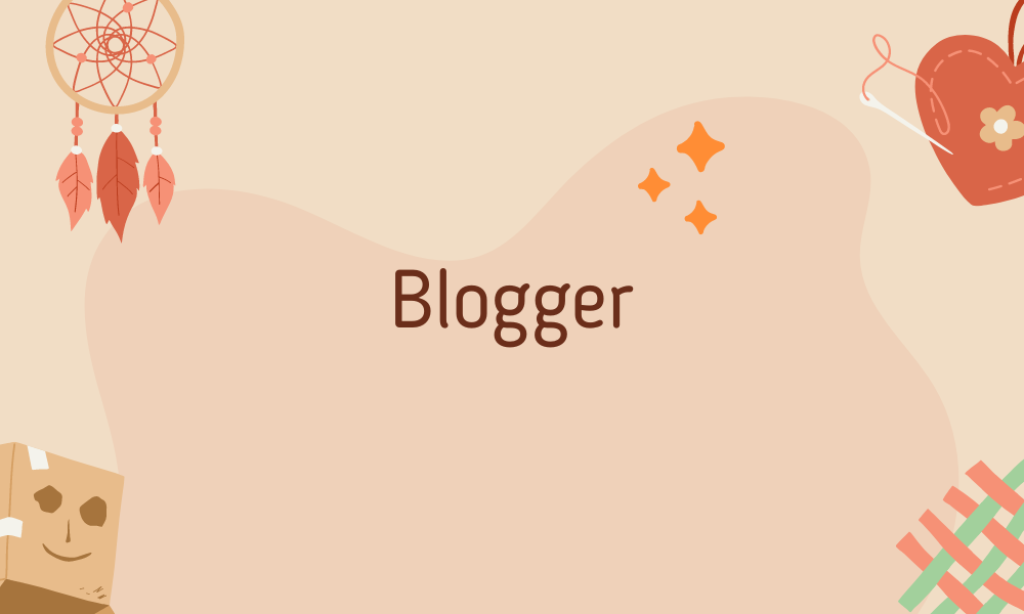
Why it’s best for Cricut: Blogger is a casual, script-like font that feels personal and inviting. Its flowing, connected style adds a handmade charm to projects. The smooth curves and loops of Blogger ensure it cuts well, ideal for custom invitations or personal decor.
5. Brasika
Why it’s best for Cricut: Brasika is a dynamic, playful font with a unique character, great for projects that need a fun and engaging look. Its sturdy yet whimsical design ensures that even the more playful elements translate well into cutouts.
6. Helios
Why it’s best for Cricut: Helios is a minimalist sans-serif with a clean, geometric structure. Its simplicity makes it incredibly versatile for various design contexts. The uniformity and simplicity of Helios result in precise and hassle-free cuts, ideal for both intricate and bold designs.
7. Josefin Sans
Why it’s best for Cricut: Josefin Sans is a geometric, elegant sans-serif that captures the essence of vintage typographic styles while remaining modern and functional. Its light, airy quality ensures it cuts beautifully, making it suitable for stylish, contemporary crafts.
8. Luna
Why it’s best for Cricut: Luna is a script font that combines readability with a touch of whimsy, perfect for projects that require a friendly and approachable look. Luna’s clear, legible script is easy to cut, ensuring the personal touch doesn’t compromise the quality of the final product.
9. Merriweather
Why it’s best for Cricut: Merriweather is a serif font designed to be highly readable on screen and in print. It’s robust, readable, and dynamic. Its strong, clear structure makes Merriweather a great choice for detailed craft projects, ensuring legibility and elegance.
9. Montserrat
Why it’s best for Cricut: Montserrat is a geometric sans-serif that blends urban and contemporary vibes. It’s versatile and highly legible. The clean, modern lines of Montserrat make it easy to cut, which is crucial for producing crisp and professional-looking results.
10. Nixie One
Why it’s best for Cricut: Nixie One is a retro-inspired, thin font that adds a touch of nostalgia to any project. Its slender yet clear lines ensure precise cuts, perfect for vintage-themed designs or delicate decorations.
11. Oswald
Why it’s best for Cricut: Oswald is a reworking of the classic gothic typeface style, adapted for digital use with its bold, condensed style. The sturdy and condensed letters of Oswald are ideal for impactful and space-efficient text in designs.
12. Poppins
Why it’s best for Cricut: Poppins is a geometric sans-serif font that offers clean lines and a professional look, suitable for both text-heavy and decorative uses. Its balanced and uniform structure allows for smooth and easy cutting, making it versatile for various applications.
13. Quincy
Why it’s best for Cricut: Quincy is a serif font that combines traditional readability with a modern twist, making it perfect for both formal and casual designs. The distinctive serifs and moderate weight of Quincy ensure that each character stands out clearly, even when cut at smaller sizes.
15. Raleway
Why it’s best for Cricut: Raleway is an elegant sans-serif with a lot of character, designed to offer a high level of style and sophistication. Its clean, stylish design ensures that it cuts beautifully, providing a refined look to any project.